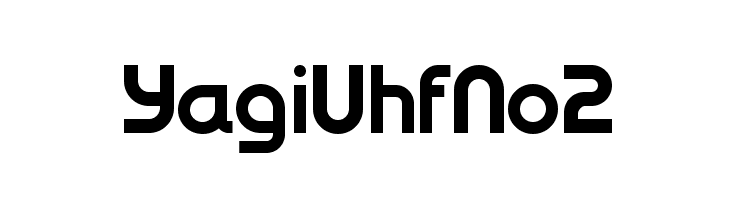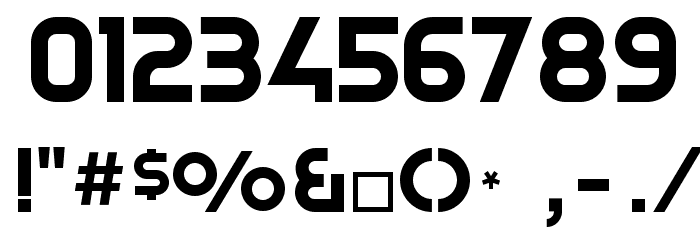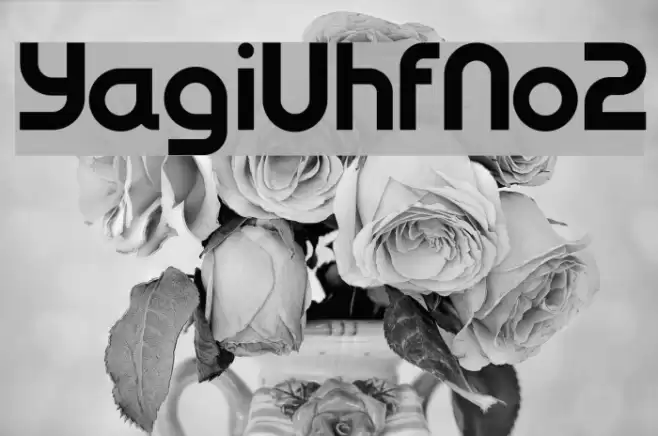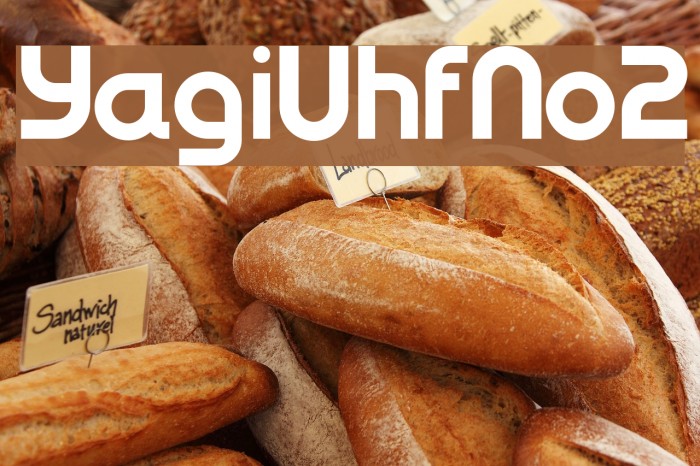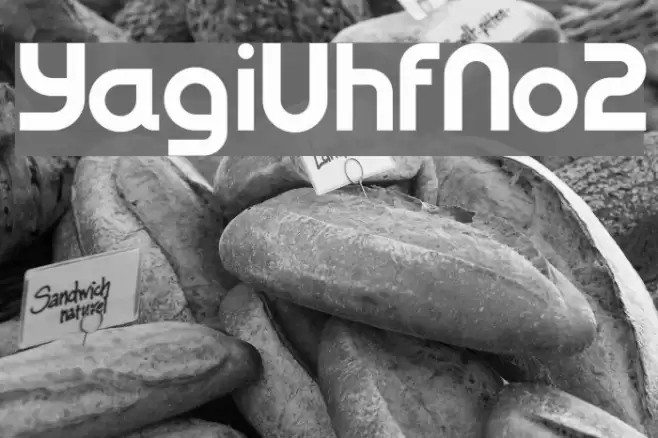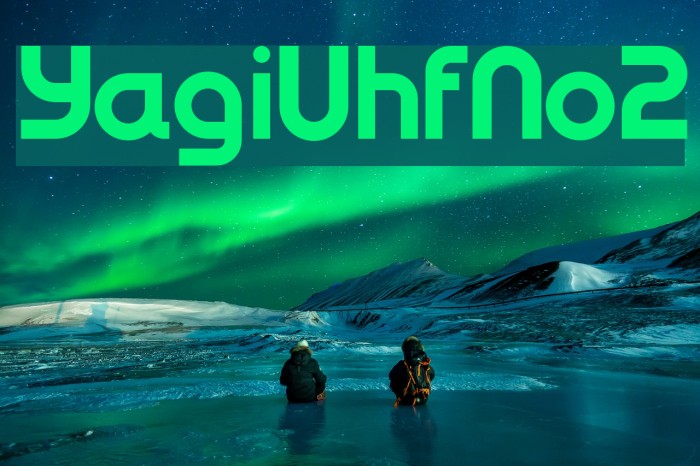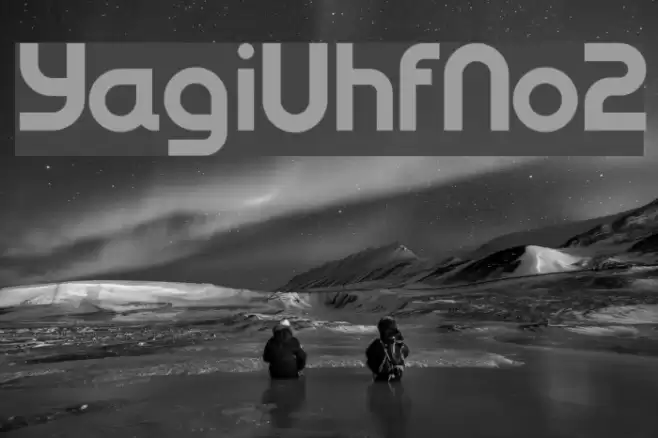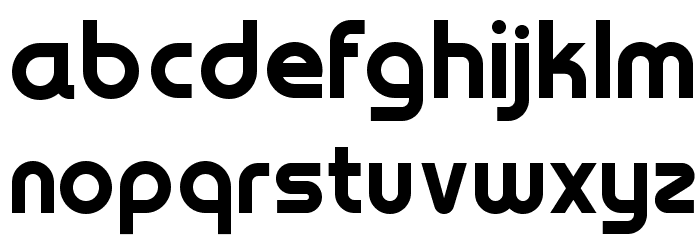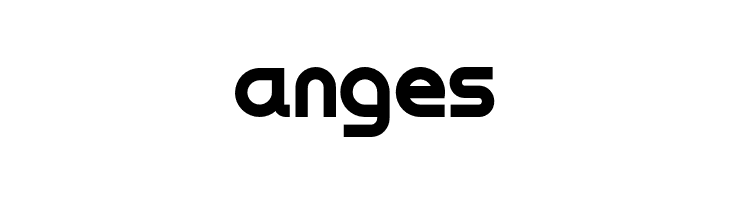
YagiUhfNo2 Font
This font features a bold and modern design with geometric influences. The characters are uniformly thick, creating a strong visual impact. The rounded edges and consistent stroke width give it a futuristic and clean appearance. The uppercase and lowercase letters maintain a cohesive style, while the numerals and special characters are designed to match the overall aesthetic. The font's structure is solid, making it suitable for various digital and print applications.
A bold, geometric font with a modern and clean design.
• Proposed Projects: Ideal for tech branding, futuristic posters, digital interfaces, and modern advertising.
• Category: Sans-Serif
• Bold: Yes
• Italic: No
• Weight: Bold
• Width: Normal
• Character Spacing: Normal
• Contrast: Low
• Overall Style: Modern
• Use Case: Headlines, Logos, Posters